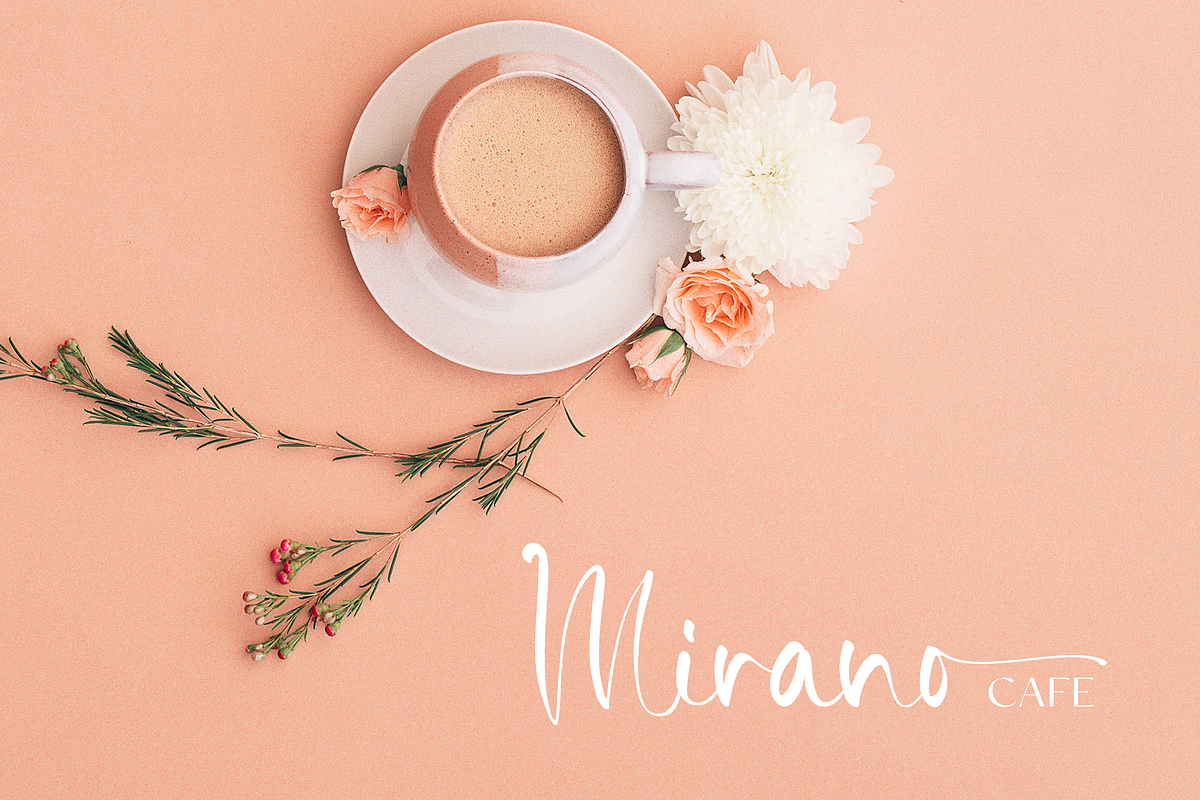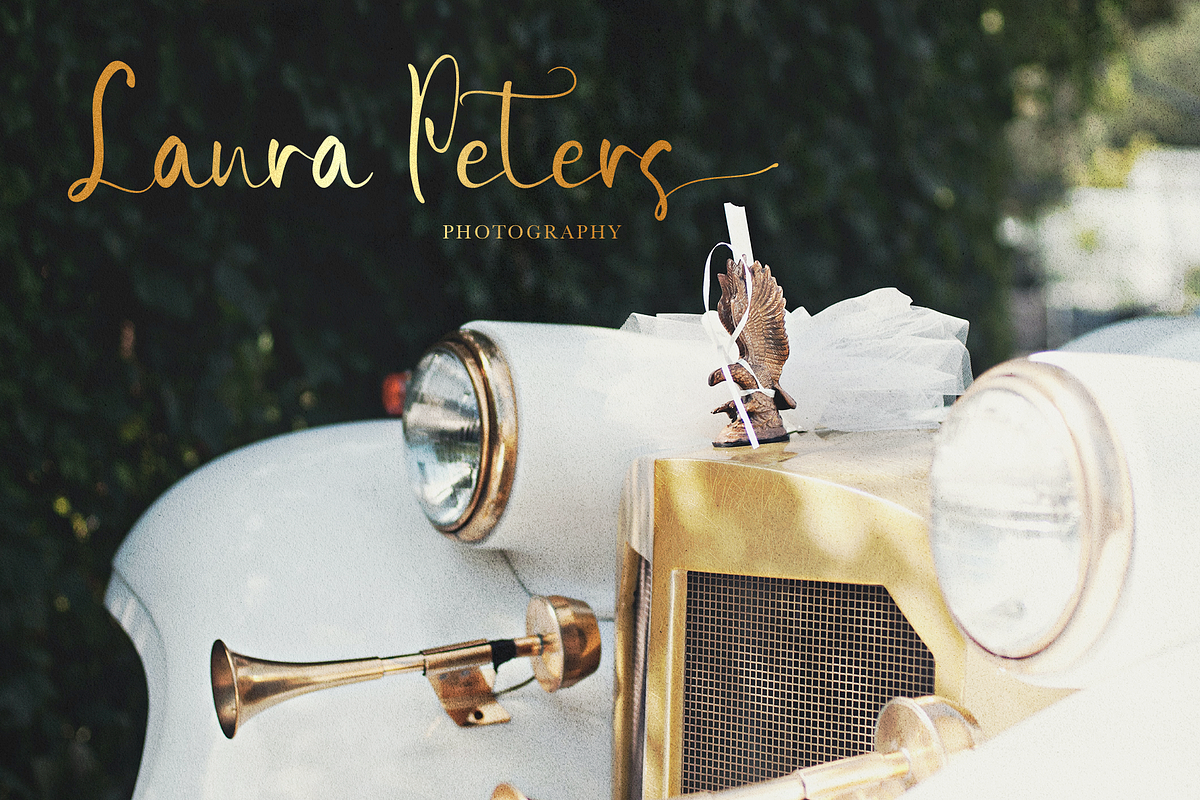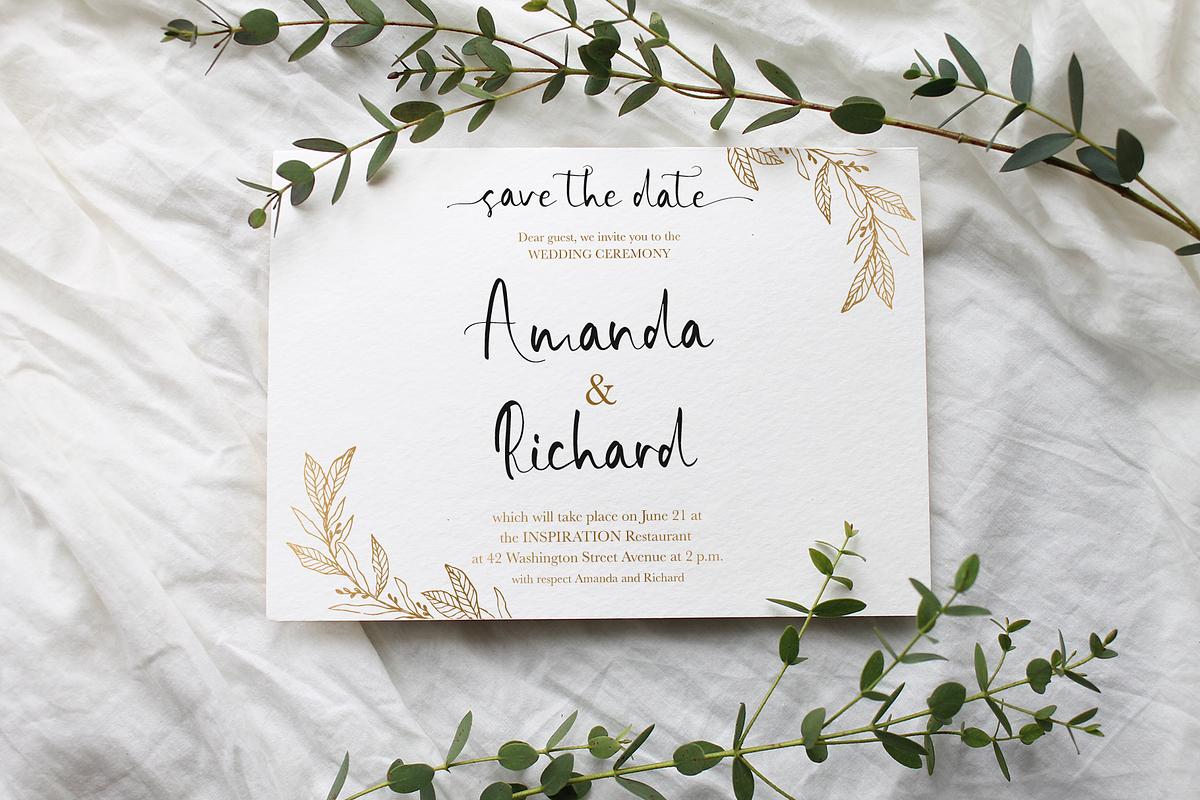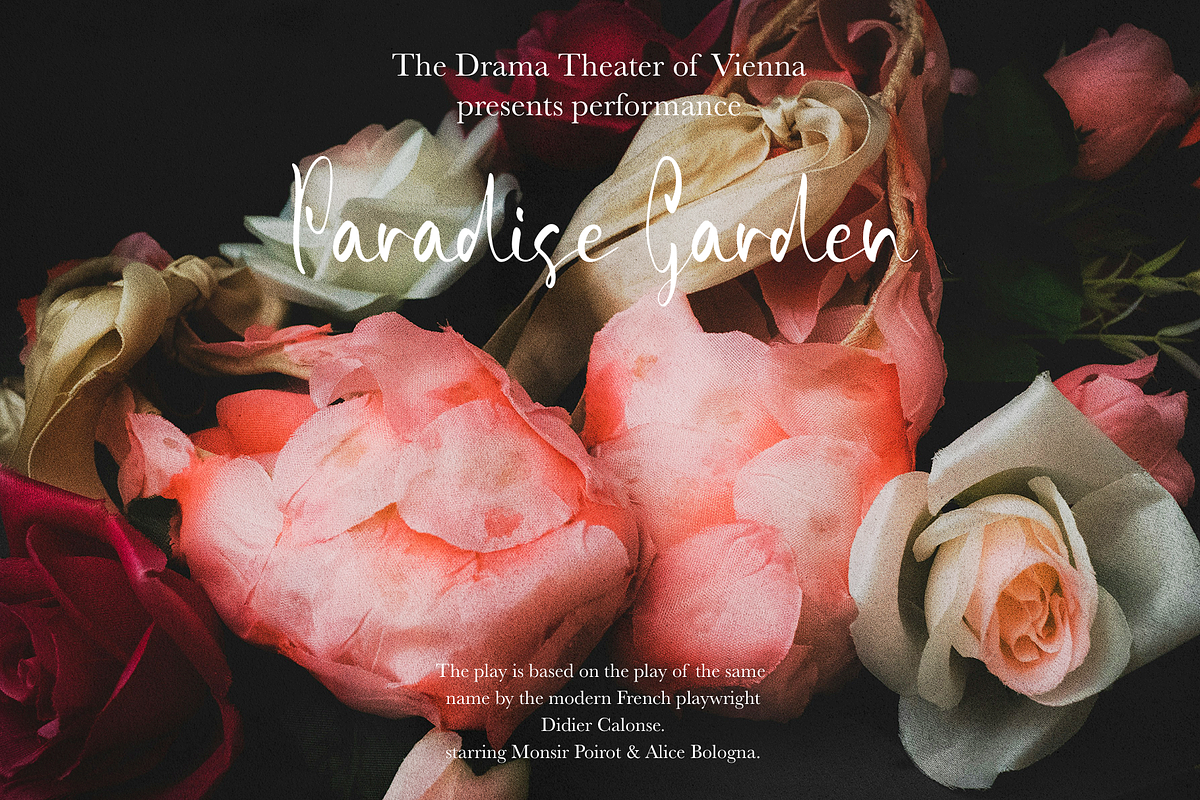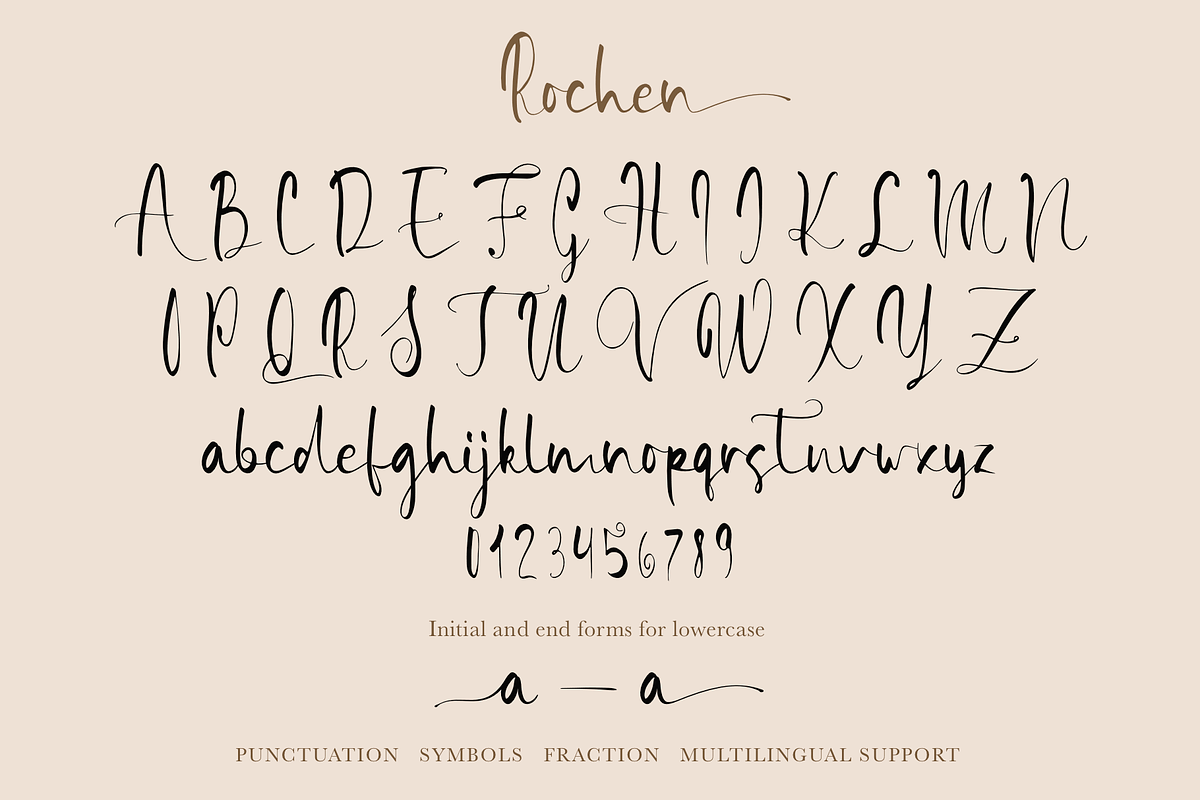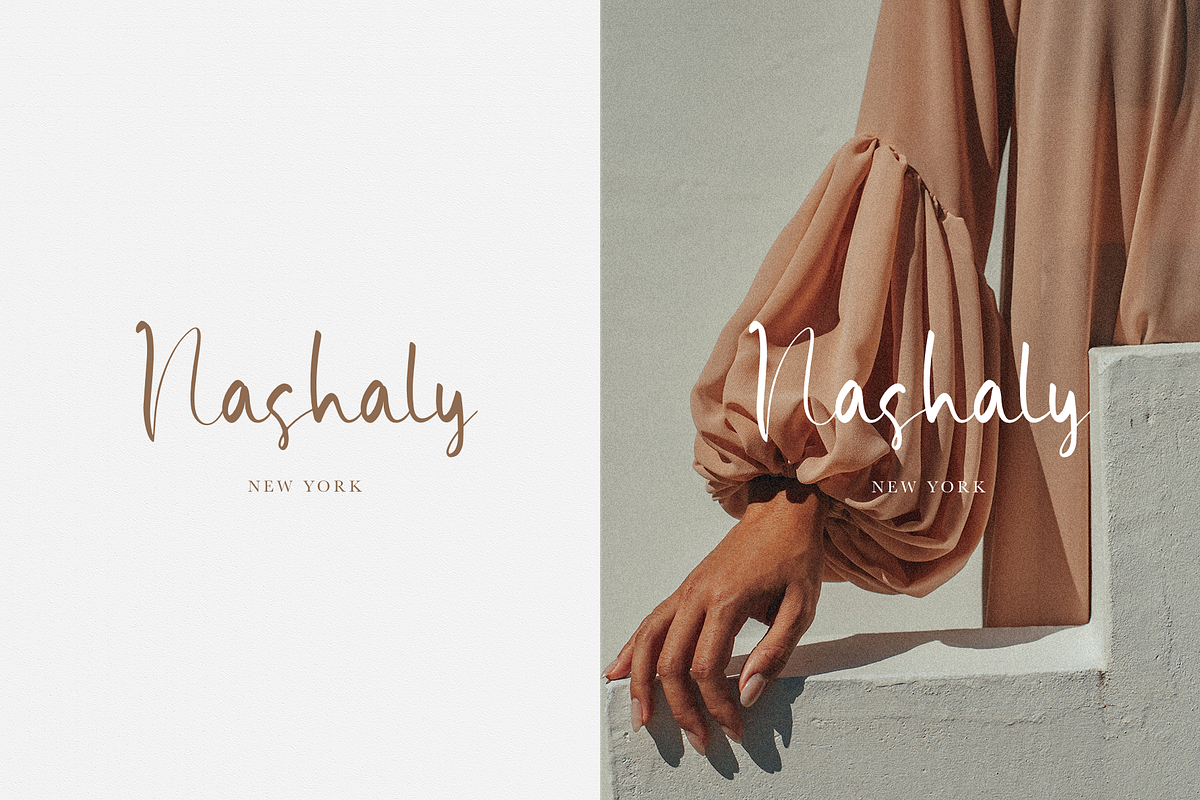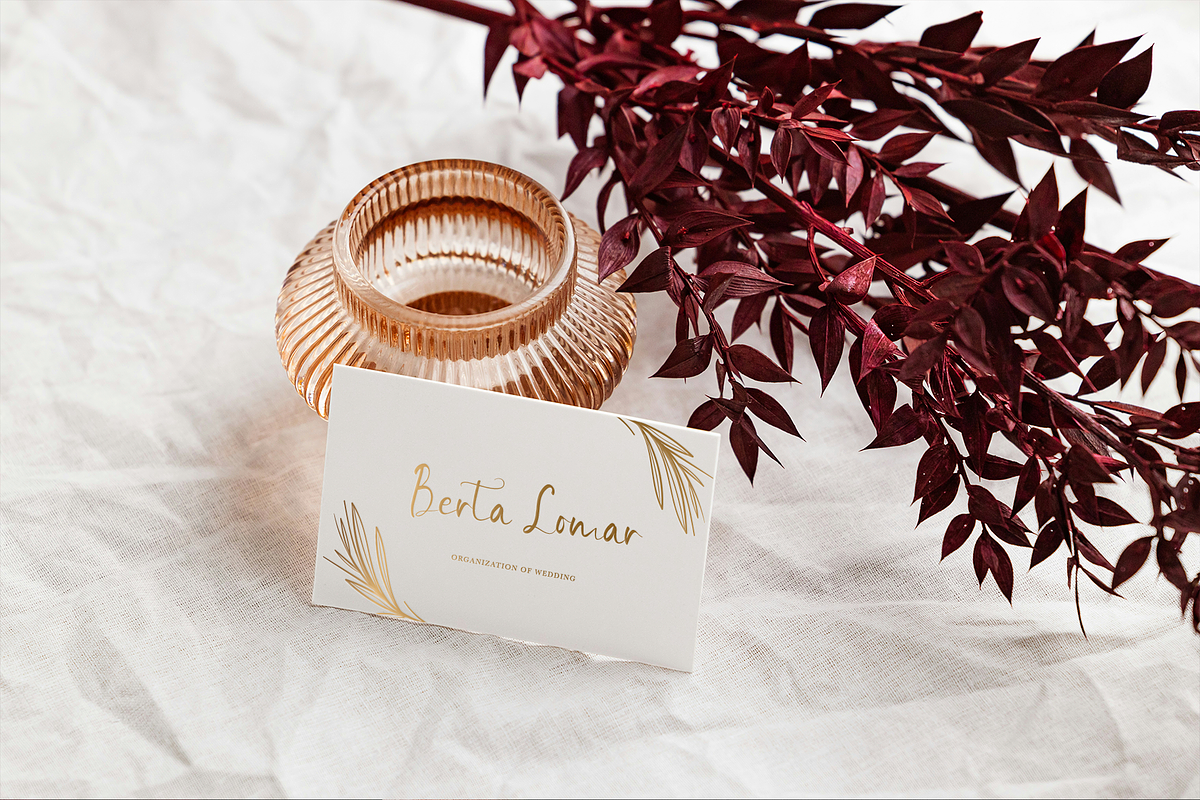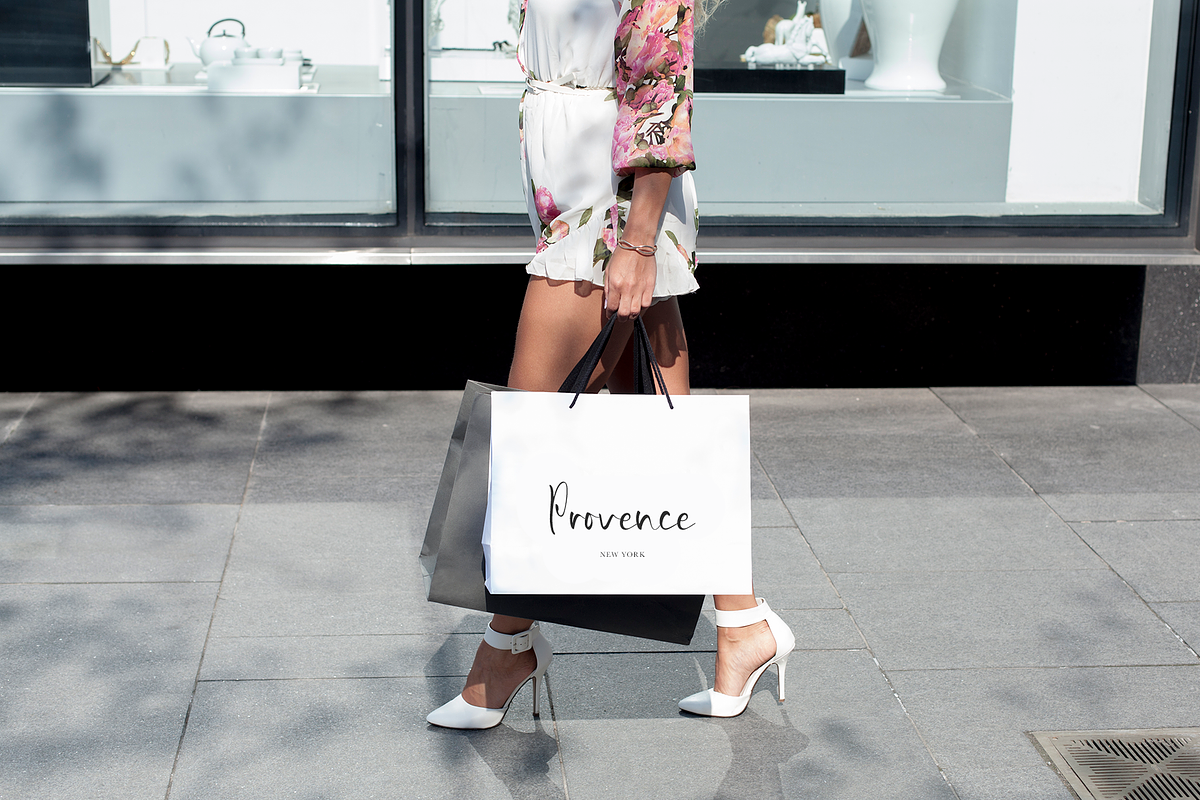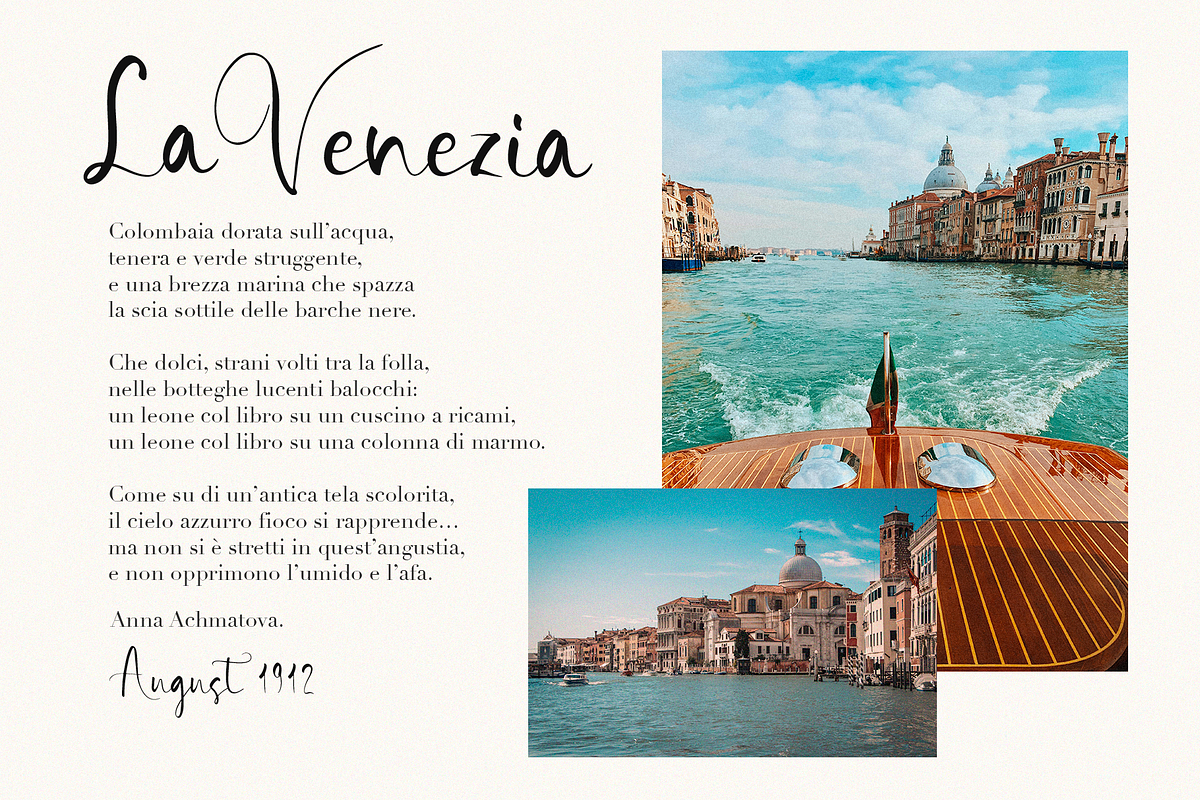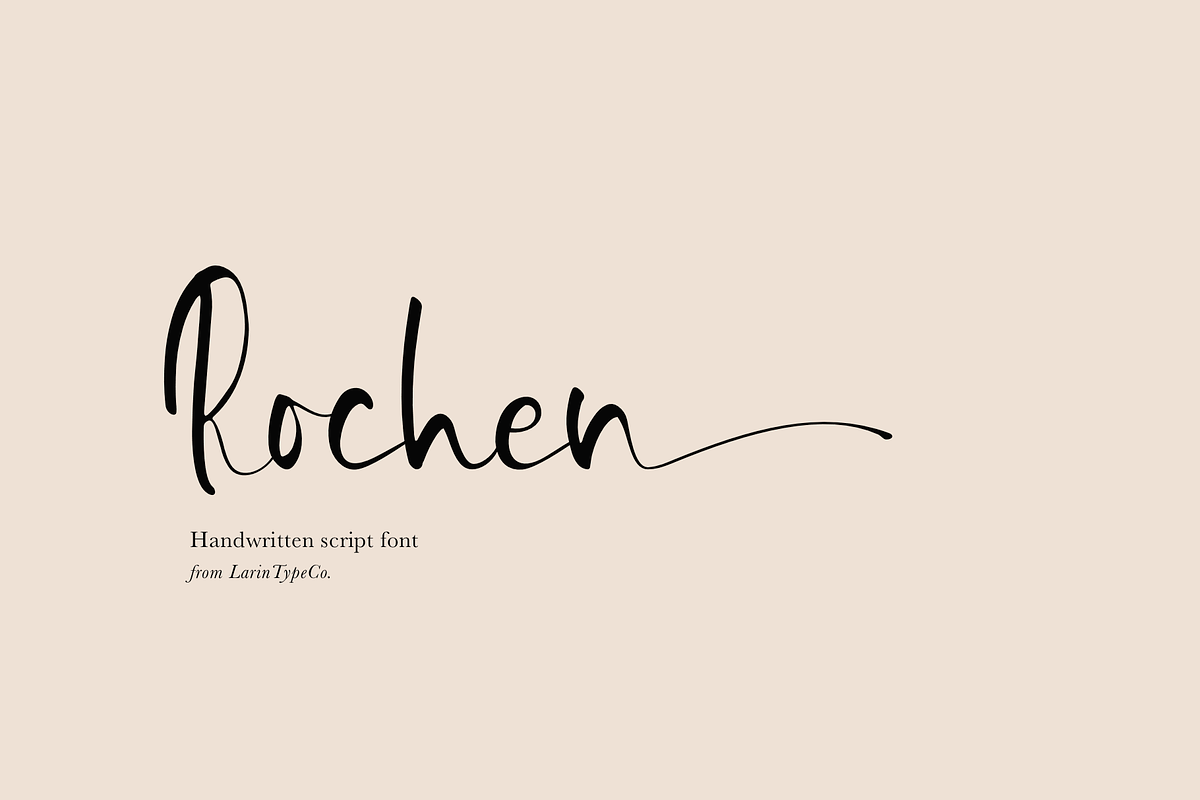
Rochen
Rochen this amazing handwritten font is light and elegant, will emphasize your personality in any project and will charm you with its signature.
This font includes initial and end forms make your signature with them. You can use it to create logos, branding, t-shirts, book covers, stationery, marketing, blogs, magazines, cosmetics, signage, and more.
- Full alphabet with Uppercase and Lowercase A-z
- Numbers, fractions
- Punctuation and symbols
- Alternates for Lowercase